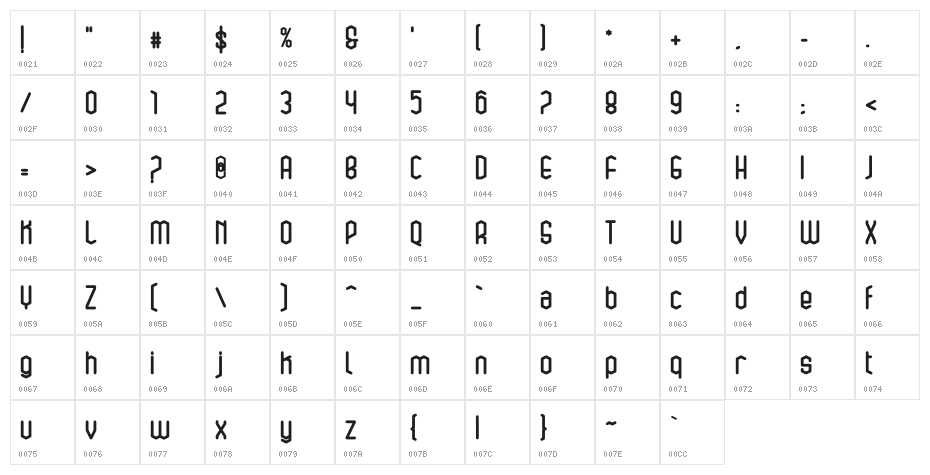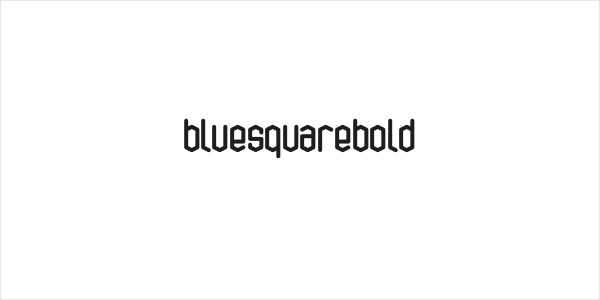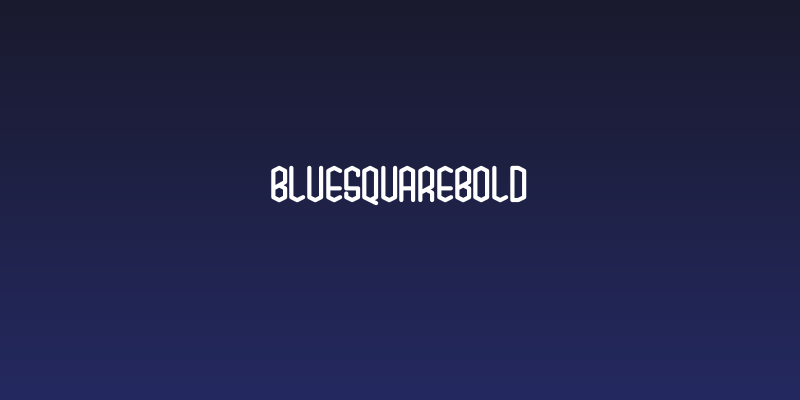
bluesquarebold Font
bluesquarebold Description
This font features a bold, geometric design with a distinctively modern and industrial feel. The characters are constructed with thick, uniform strokes and rounded corners, giving them a sturdy and robust appearance. The uppercase and lowercase letters maintain a consistent height, contributing to a cohesive and balanced look. The numerals and special characters follow the same design principles, ensuring uniformity across all glyphs. The font's unique style is both eye-catching and legible, making it suitable for various design applications.